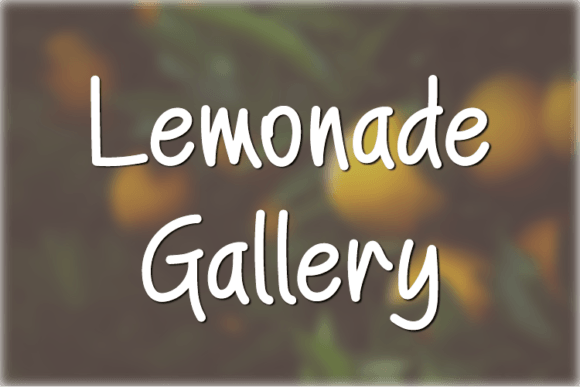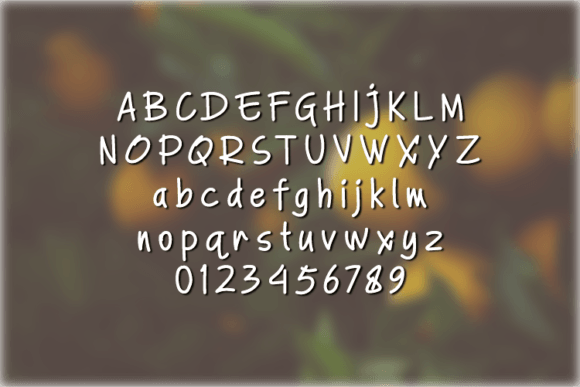
About Lemonade Gallery Font
“Lemonade Gallery” is a delightful and carefree handwritten font that adds a playful and relaxed vibe to your creative projects. With its whimsical style, this font offers versatility and can be used in various design endeavors.
This font’s standout feature is its casual and cheerful charm, making it perfect for projects where you want to convey a sense of fun and informality. Whether you’re crafting DIY projects, designing digital content, or creating greeting cards, “Lemonade Gallery” can enhance your work with a touch of lightheartedness.
In the realm of crafts and DIY, “Lemonade Gallery” can elevate your creations, adding a sense of whimsy and personality. Use it for homemade cards, scrapbooking, or any other craft project to make your work more engaging and enjoyable.
In digital design, this font can bring a carefree and inviting feel to your work. Use it in social media graphics, blog headers, or website elements to create a friendly and approachable online presence.
When it comes to presentations, “Lemonade Gallery” can help make your content feel relatable and enjoyable for your audience. Additionally, it’s an excellent choice for designing unique and cheerful greeting cards for various occasions, allowing you to convey warmth and sincerity in your messages.
For branding purposes, especially for brands or businesses with a fun and casual identity, “Lemonade Gallery” can become a part of your branding toolkit. It can be incorporated into logos, packaging, and promotional materials to infuse a sense of playfulness and personality.
This font also works well for creating inspirational quotes, posters, or wall art, adding a touch of positivity and creativity to your messages. When designing event invitations, it can set the right tone for informal gatherings, parties, or celebrations.
“Lemonade Gallery” is a great choice for children’s projects, such as book covers, activity books, or educational materials, due to its playful and child-friendly nature. Moreover, for social media posts, it can infuse your content with a sense of fun and whimsy, effectively engaging your audience.
In conclusion, “Lemonade Gallery” is a versatile font that brings a sense of joy and informality to a wide range of design projects. Its ability to convey a cheerful and relaxed atmosphere makes it a valuable asset for both personal and professional creatives seeking to add a touch of fun to their work.